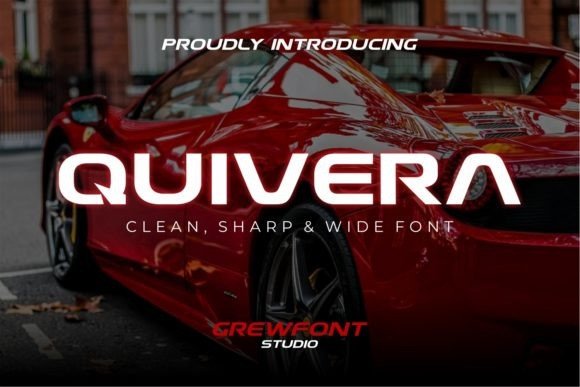
Quivera Display Font Free
Quivera Display Font is Fresh stylish, bold and quirky typeface. Perfect for that retro look. It’s designed and shared by grewfont.studio. This fantastic display font is best suited for headlines of all sizes, as well as for blocks of text that have both maximum and minimum variations. Whether it’s for web, print, moving images or anything else – Quivera will look spectacular.